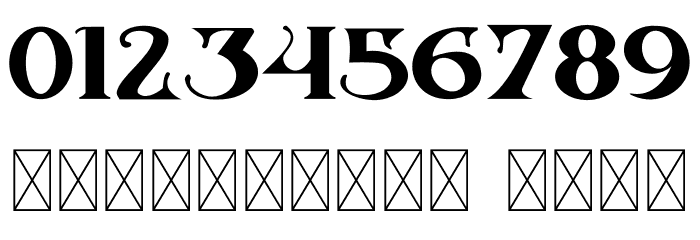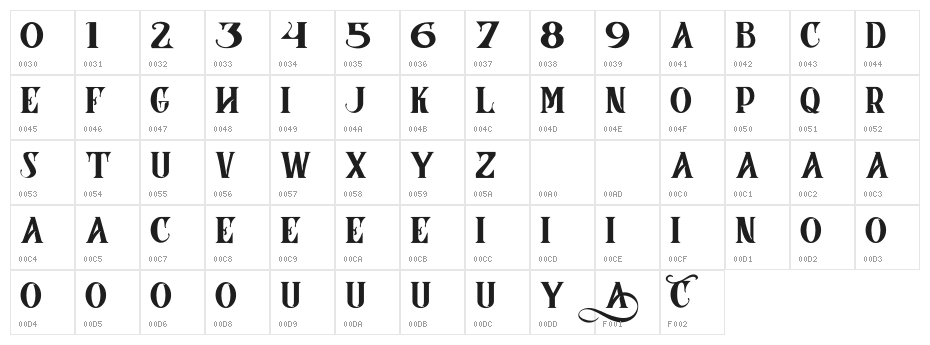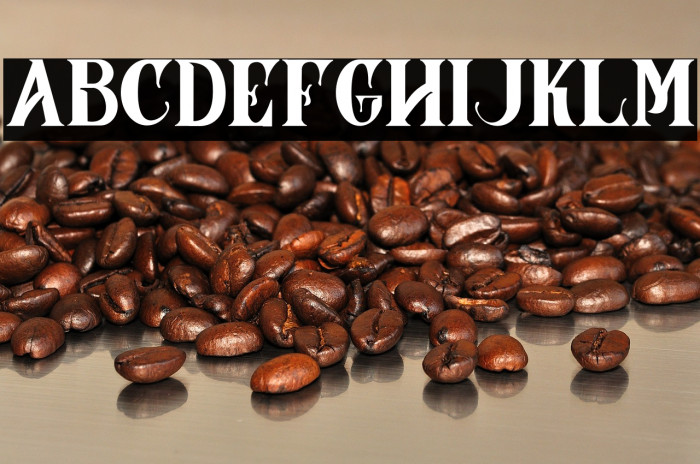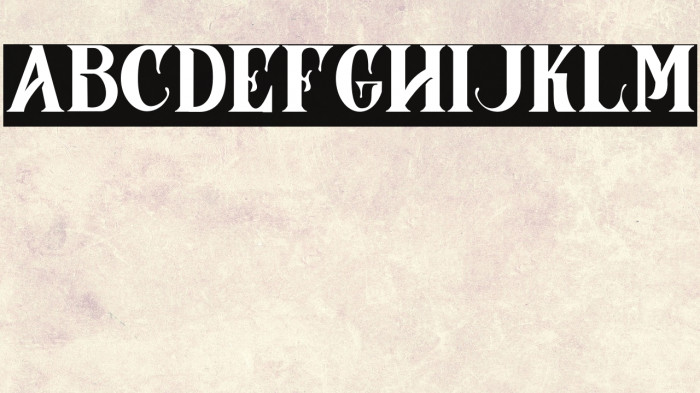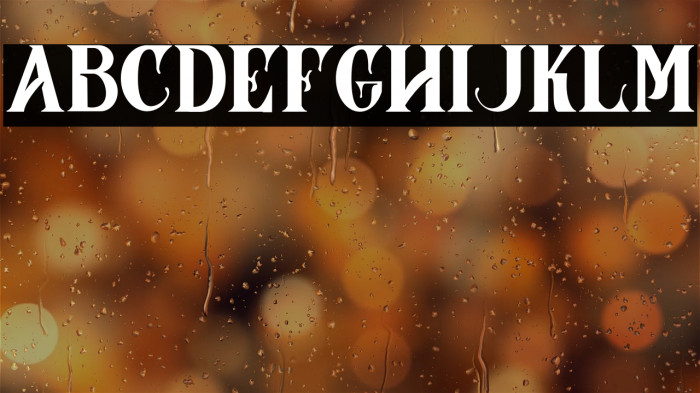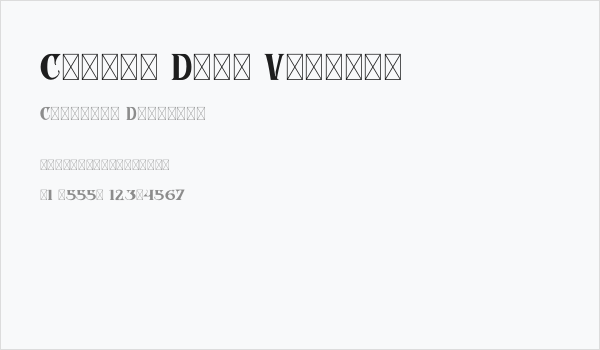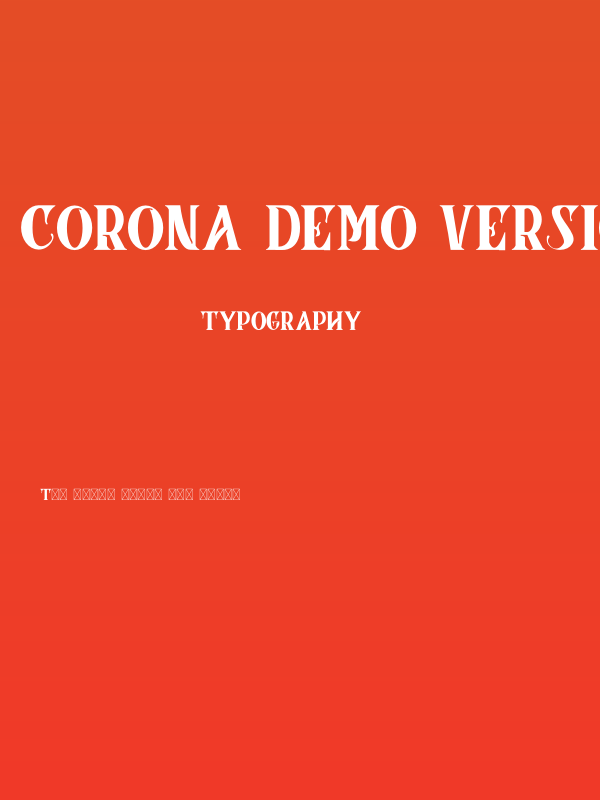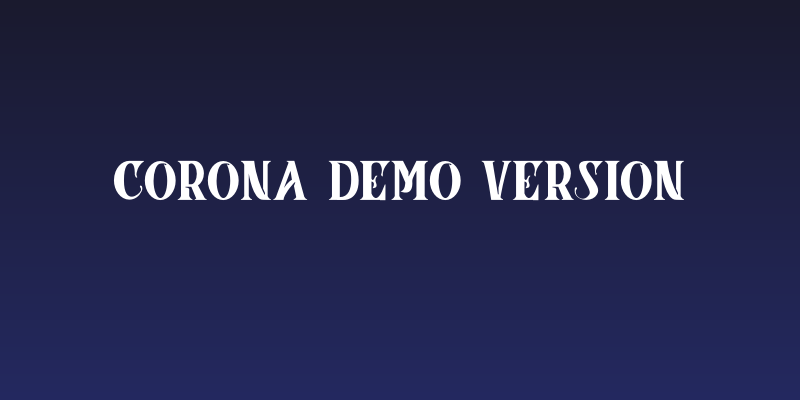
Corona Demo Version Font
Corona Demo Version Description
This font features a bold and dramatic style with high contrast between thick and thin strokes, giving it a striking and impactful appearance. The uppercase letters have a distinct, sharp serif design, while the numerals maintain a consistent boldness that complements the overall aesthetic. The font's unique character shapes and flourishes add a touch of elegance and sophistication, making it suitable for attention-grabbing headlines and titles. The absence of lowercase letters and special characters in this demo version suggests a focus on strong visual impact rather than versatility.